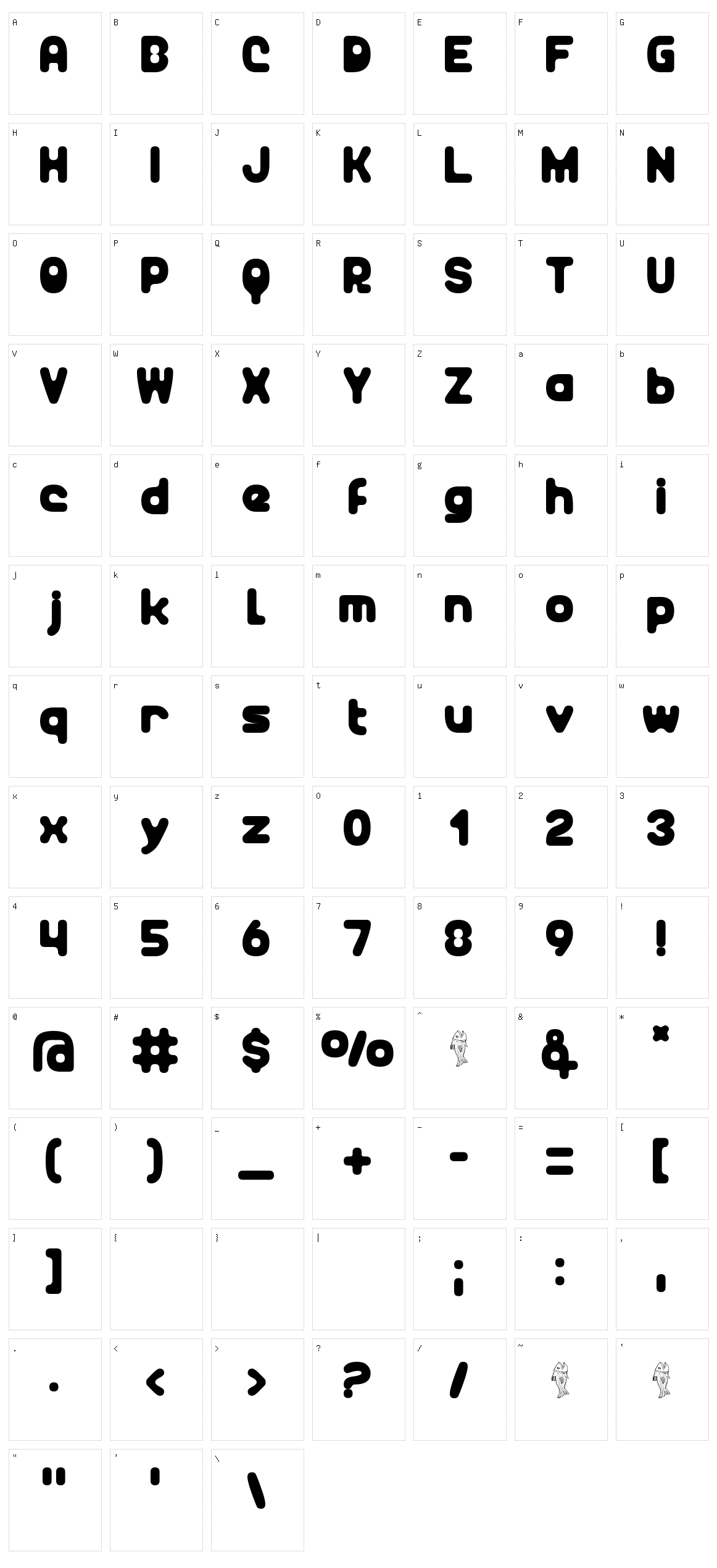
is a «dibujado» font
completed (for now) on 2003.06.18
and it contains enough characters
for you to make, like, full sentences
plus it has some fish floating around in there